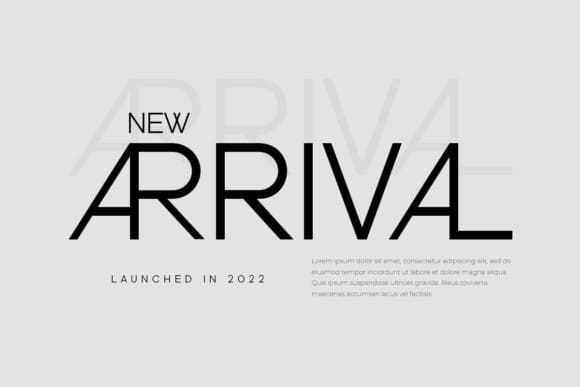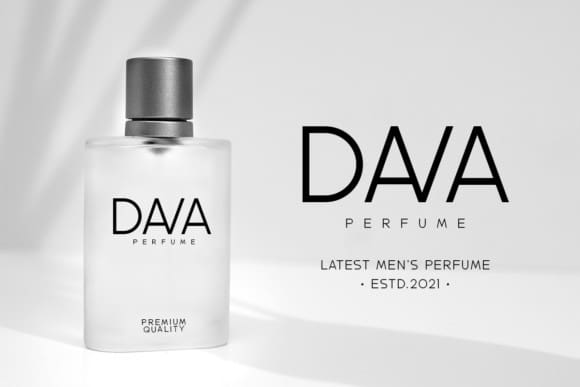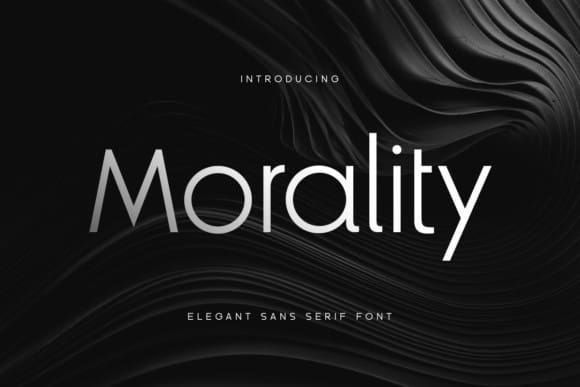
Morality Font
Morality Font is a font that exudes elegance and sophistication with its sleek sans-serif design. Its refined curves and balanced proportions give it a timeless appeal, perfect for conveying a sense of modernity and style. Ideal for luxury branding, editorial layouts, and chic graphic designs.